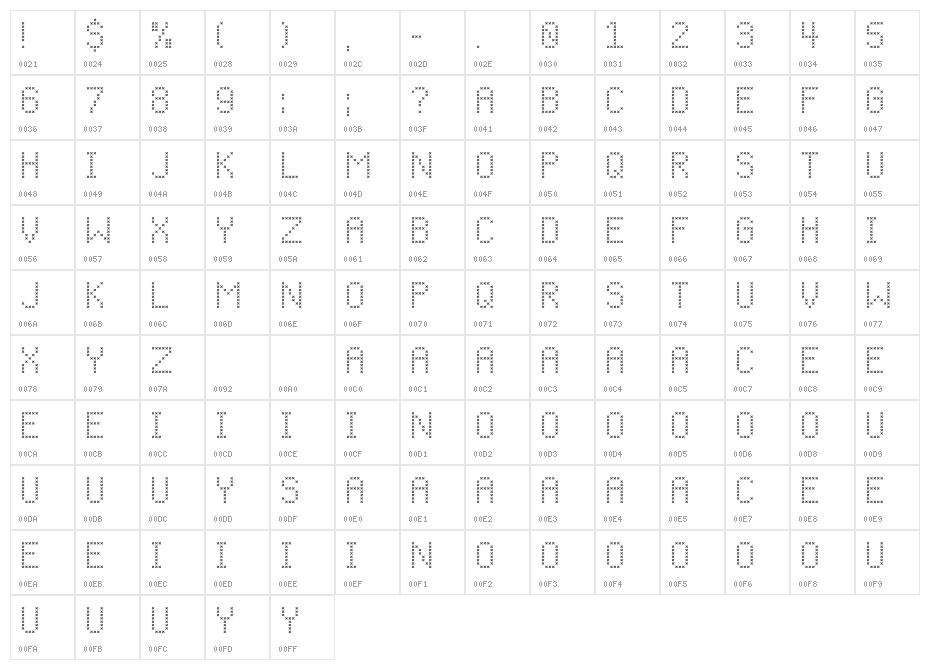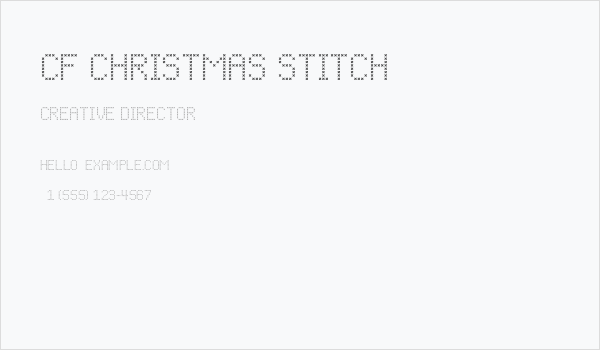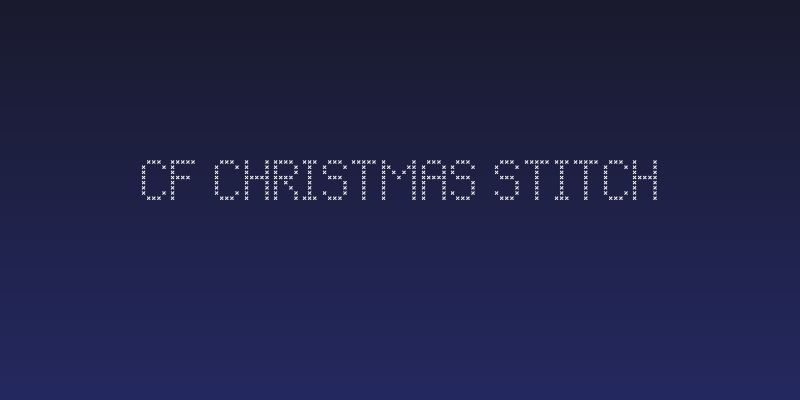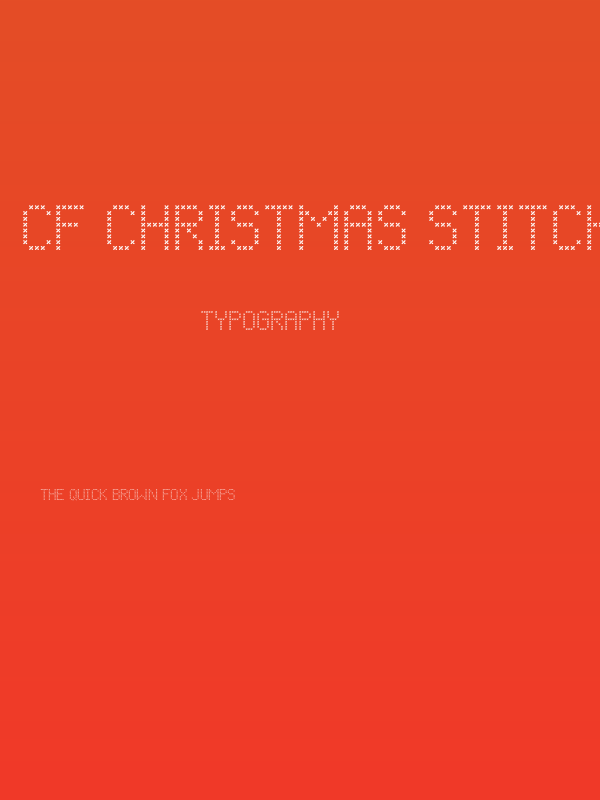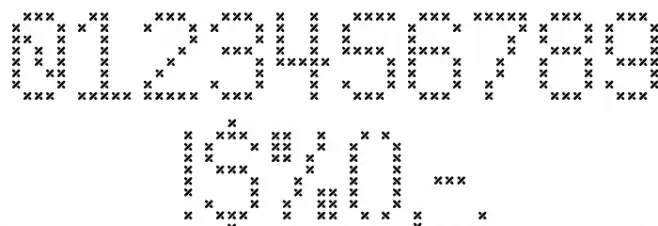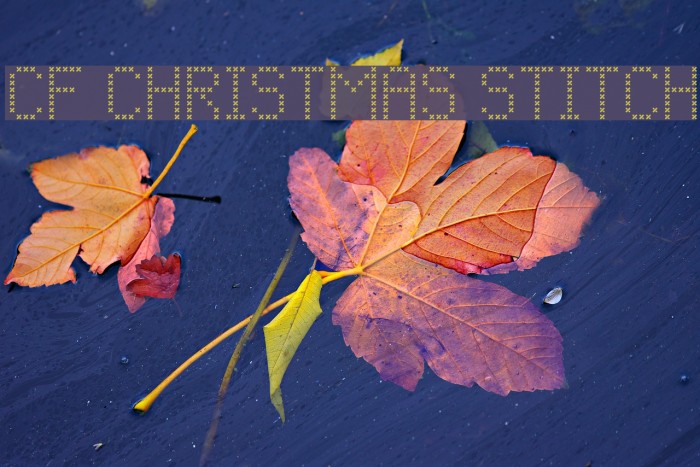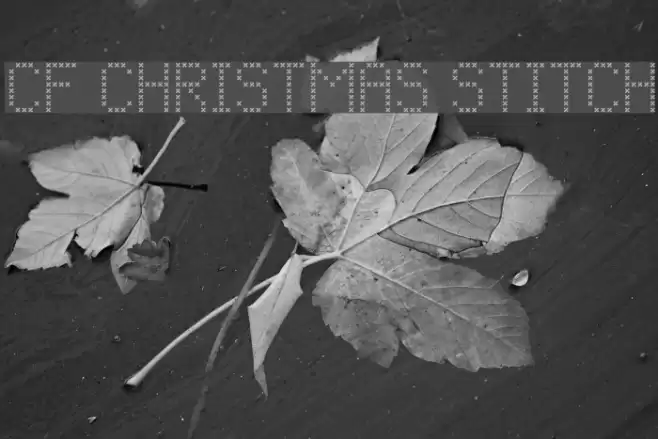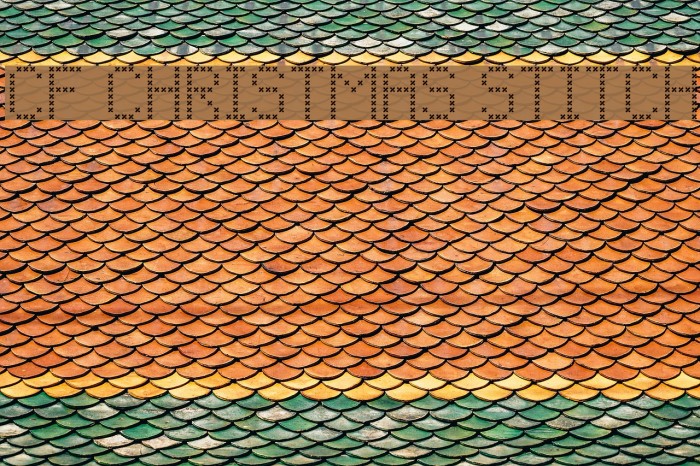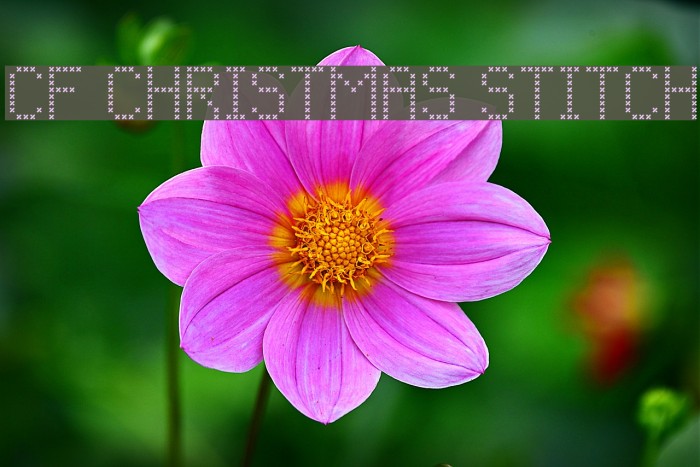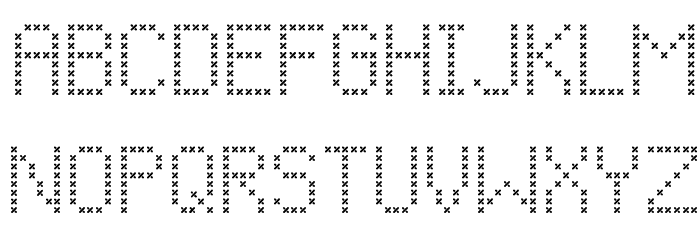
CF Christmas Stitch Font
CF Christmas Stitch Description
This font features a unique cross-stitch pattern, reminiscent of traditional embroidery techniques. Each character is composed of small 'X' shapes, creating a textured and handcrafted appearance. The design is consistent across uppercase and lowercase letters, as well as numbers and special characters, maintaining a cohesive look. The font evokes a sense of warmth and nostalgia, perfect for holiday-themed projects or designs that require a homespun touch. Its decorative nature makes it ideal for creative applications where a playful and festive style is desired.
| Proposed Projects | Holiday cards, festive banners, craft labels, DIY projects, and decorative posters. |